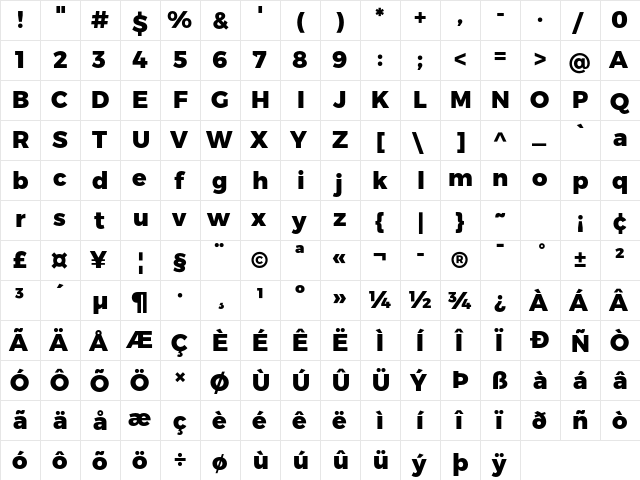
Trueno ExtraBold
| Foundry | Julieta Ulanovsky |
| Designer | Julieta Ulanovsky |
Design Context for Trueno Typeface
Trueno is a composed and adaptable typeface that performs quietly and consistently across a wide range of design contexts. Its bold stroke weight gives it real presence on the page.